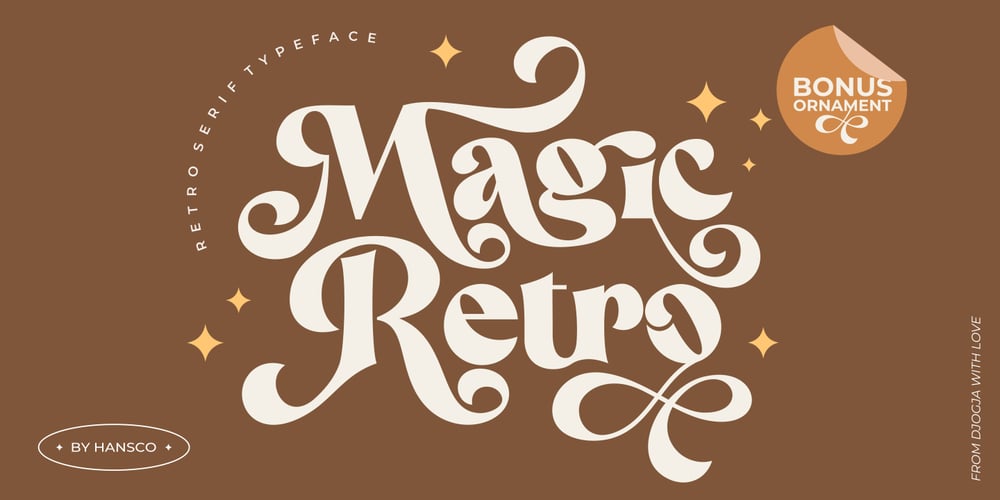
Magic Retro Font Family was designed by Burhan Afif and published by HansCo. Magic Retro contains 4 styles and family package options. INTRODUCING – Magic Retro casual and playful retro serif typeface.Magic Retro is a bold Casual and playful retro serif typeface with 25+ ligatures and 80+ alternates in lowerscase and uppercase that you can combine to get curves with beautiful ornament bonus. This font is PUA encoded which means you can access all of the glyphs and swashes with ease in photoshop, illustrator and through your character map panel.comes with a full uppercase, lowercase, numbers and punctuation + standard multilingual support. This font is perfect for fashion related branding or editorial design and displays both masculine and feminine qualities. We recommend using Adobe Illustrator or Photoshop.Tutorial how to Install & use Alternate / Special Character : https://hanscostudio.com/tutorial/Enjoy!